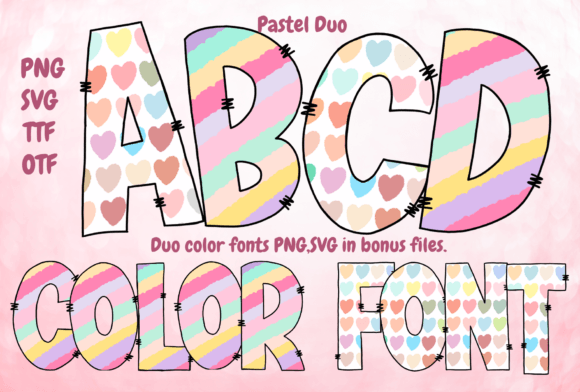
Introducing Pastel Duo Font: A Delightful Burst of Color for Your Text
Are you looking for a way to add a playful touch to your designs and make them stand out in a cheerful way? Look no further than the Pastel Duo Font! This charming and vibrant color font brings a delightful burst of color to your text, perfect for creative projects, invitations, or anything that calls for a touch of whimsy.
What is Pastel Duo Font?
Pastel Duo is a color font that adds a lively and expressive touch to your text. With its charming and vibrant hues, this font is perfect for anyone looking to infuse their designs with a dose of colorful personality. Whether you’re working on a creative project, designing an invitation, or simply want to add some whimsy to your text, Pastel Duo is the perfect choice.
Tips and Tricks for Using Pastel Duo Font
Here are some tips and tricks for using Pastel Duo Font in your designs:
- Experiment with different colors: Pastel Duo Font comes in a variety of colors, so don’t be afraid to experiment and find the perfect combination for your design.
- Use it for headings and titles: The font is perfect for headings and titles, adding a playful touch to your text.
- Pair it with other fonts: Pastel Duo Font pairs well with other fonts, so try combining it with a sans-serif font for a unique look.
- Use it for kids’ projects: The font is perfect for kids’ projects, such as birthday party invitations, coloring pages, and educational materials.
In conclusion, Pastel Duo Font is a delightful burst of color for your text, perfect for creative projects, invitations, and anything that calls for a touch of whimsy. With its charming and vibrant hues, this font adds a playful touch to your designs, making them stand out in a cheerful way. Whether you’re a designer, artist, or simply someone looking to add some personality to your text, Pastel Duo Font is the perfect choice.